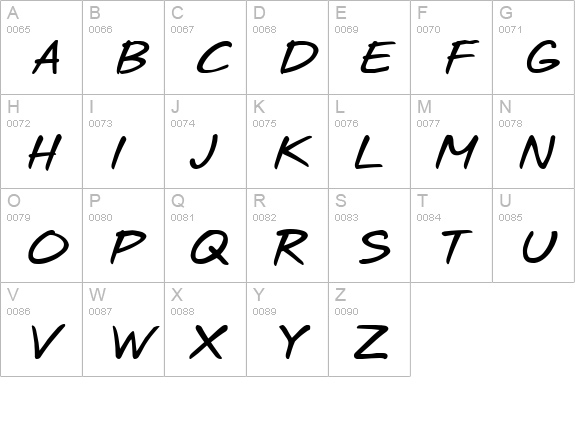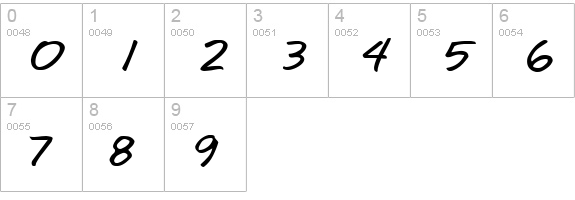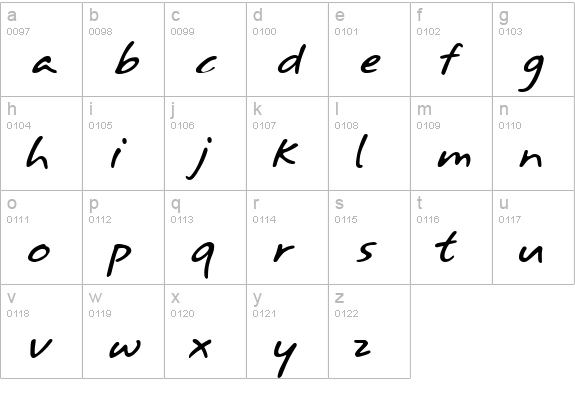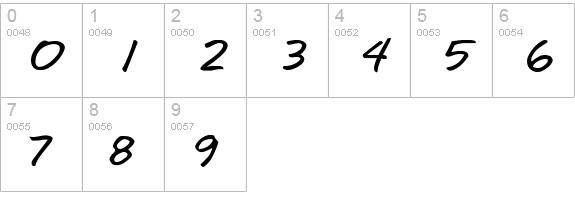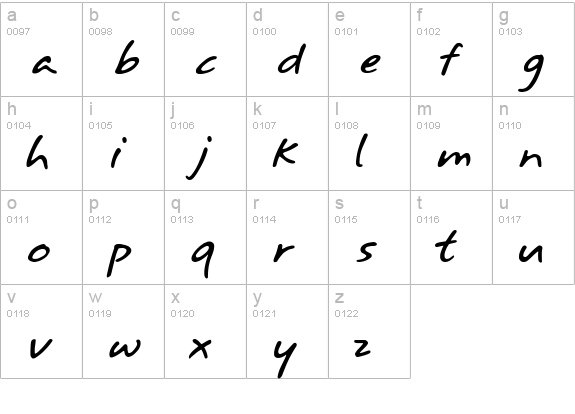
Annifont Font Details
Annifont is a beautifully crafted font that exudes elegance and sophistication. With its sleek lines and modern design, Annifont is perfect for adding a touch of class to any project. Whether you're creating a logo, designing a website, or working on a print project, Annifont is sure to make a statement. The best part? Annifont is completely free to download at FontsMarket.com. That's right, you can elevate your design game without breaking the bank. So why wait? Download Annifont today and take your designs to the next level with this stunning font.